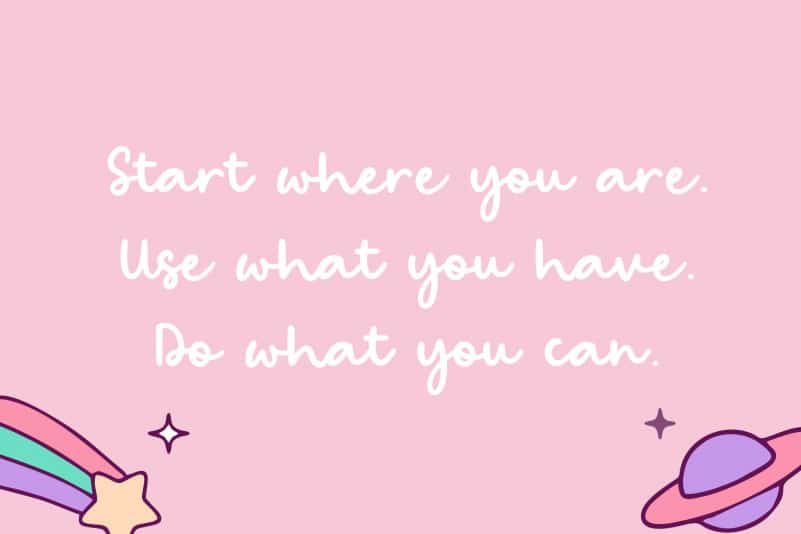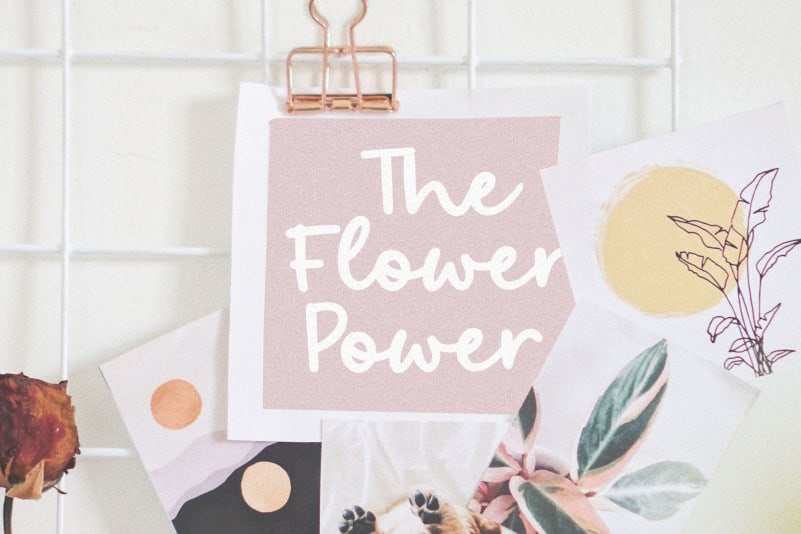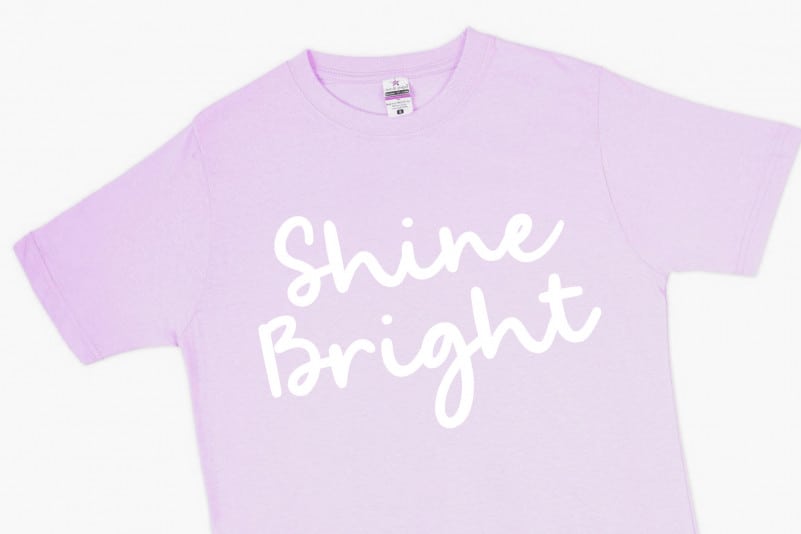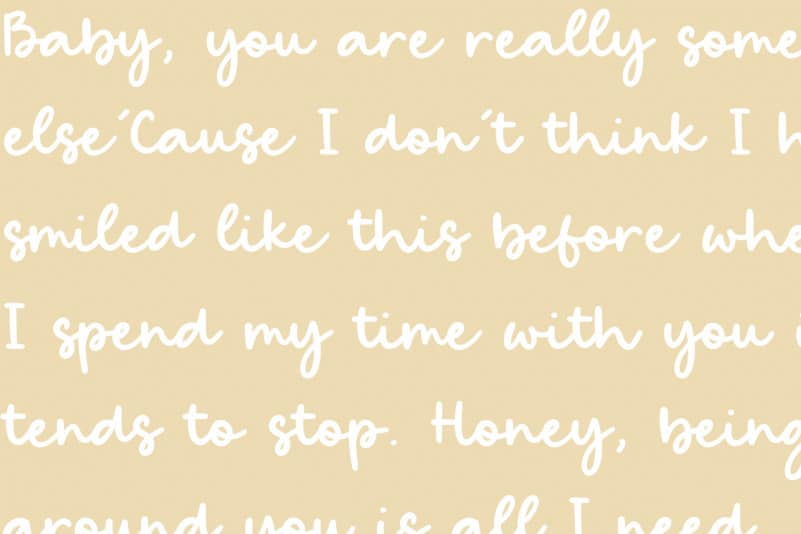
Bright Candy Modern Calligraphy Font
Proudly Present, Bright Candy Modern Calligraphy Font.
Bright Candy is a Cute Modern Calligraphy Font.
It is perfect for product packaging, branding project, megazine, social media, wedding, or just used to express words above the background.